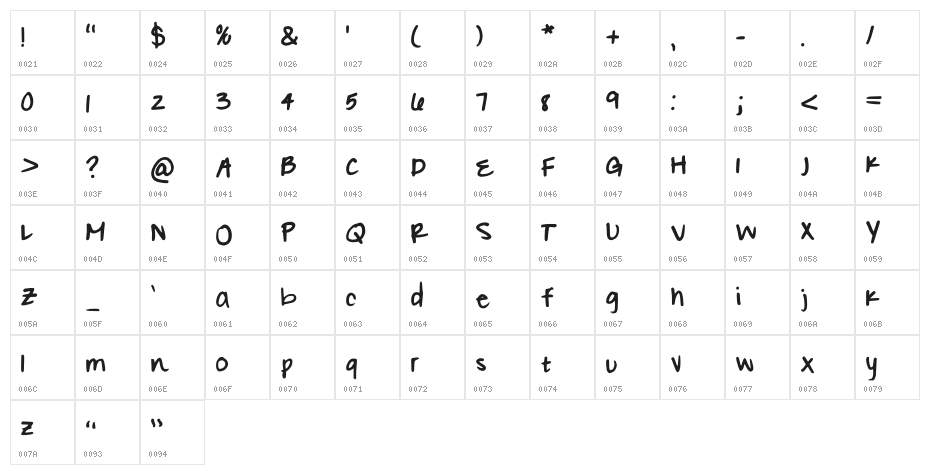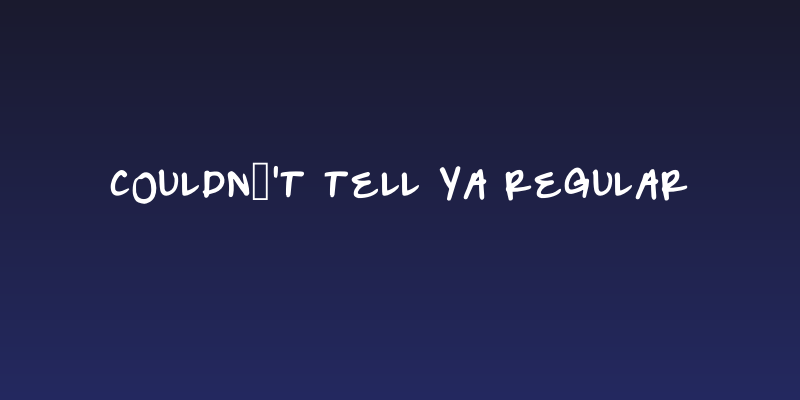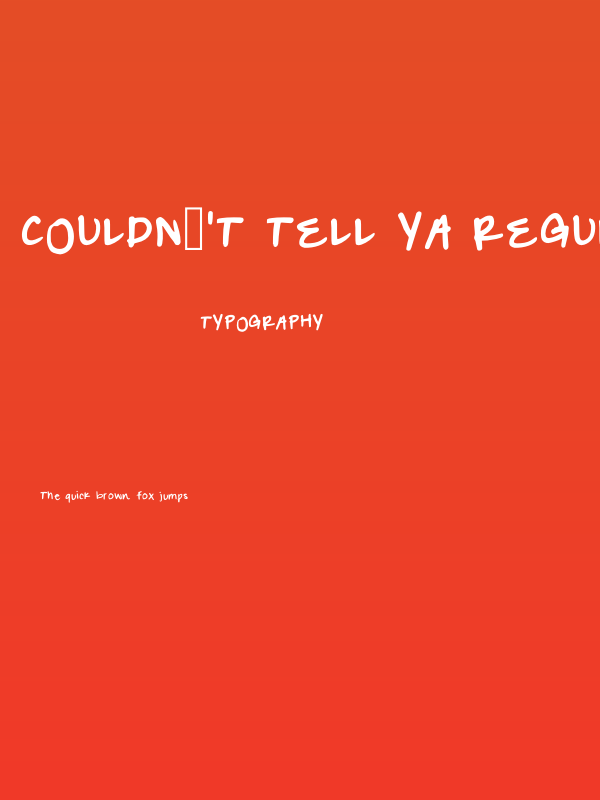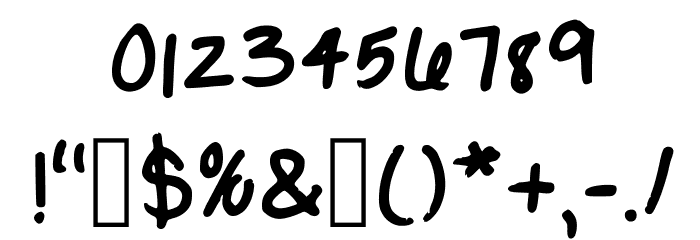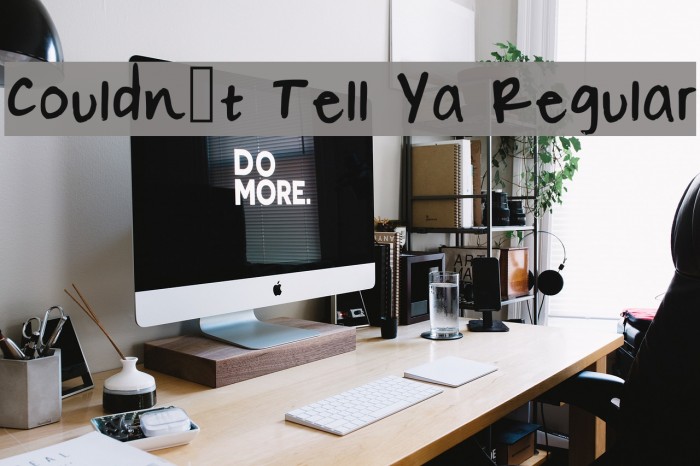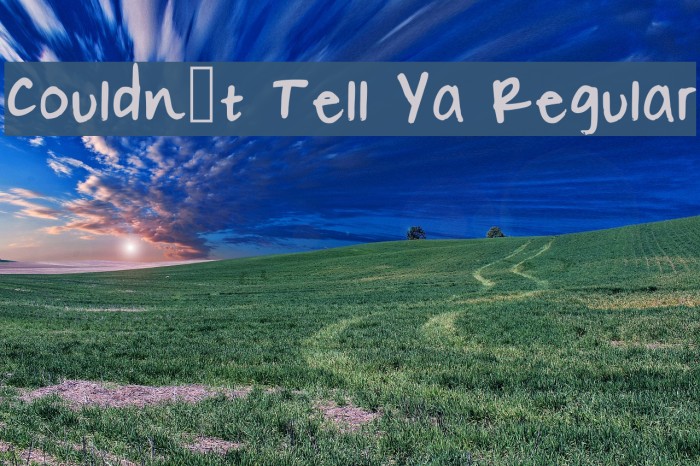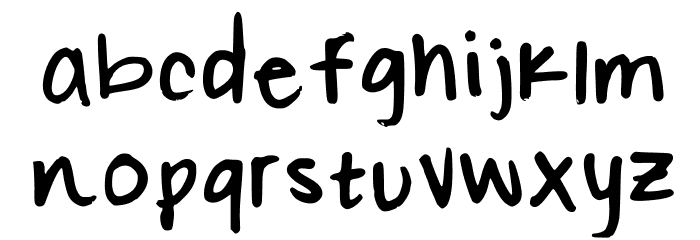
Couldn't Tell Ya Regular Font
Couldn't Tell Ya Regular Description
This font exudes a casual and playful handwritten style, characterized by its bold and slightly irregular strokes. The letters have a natural flow, mimicking the spontaneity of handwriting, which adds a personal touch to any text. The uppercase and lowercase letters maintain a consistent style, with rounded edges and a slight tilt, enhancing the informal aesthetic. The numerals and special characters are crafted with the same attention to detail, ensuring uniformity across all glyphs. This font's charm lies in its ability to convey warmth and approachability, making it suitable for projects that require a friendly and inviting tone.
| Use Case | Logos, Headlines, Informal Text |
| Proposed Projects | Ideal for greeting cards, personal invitations, children's books, and playful branding. |